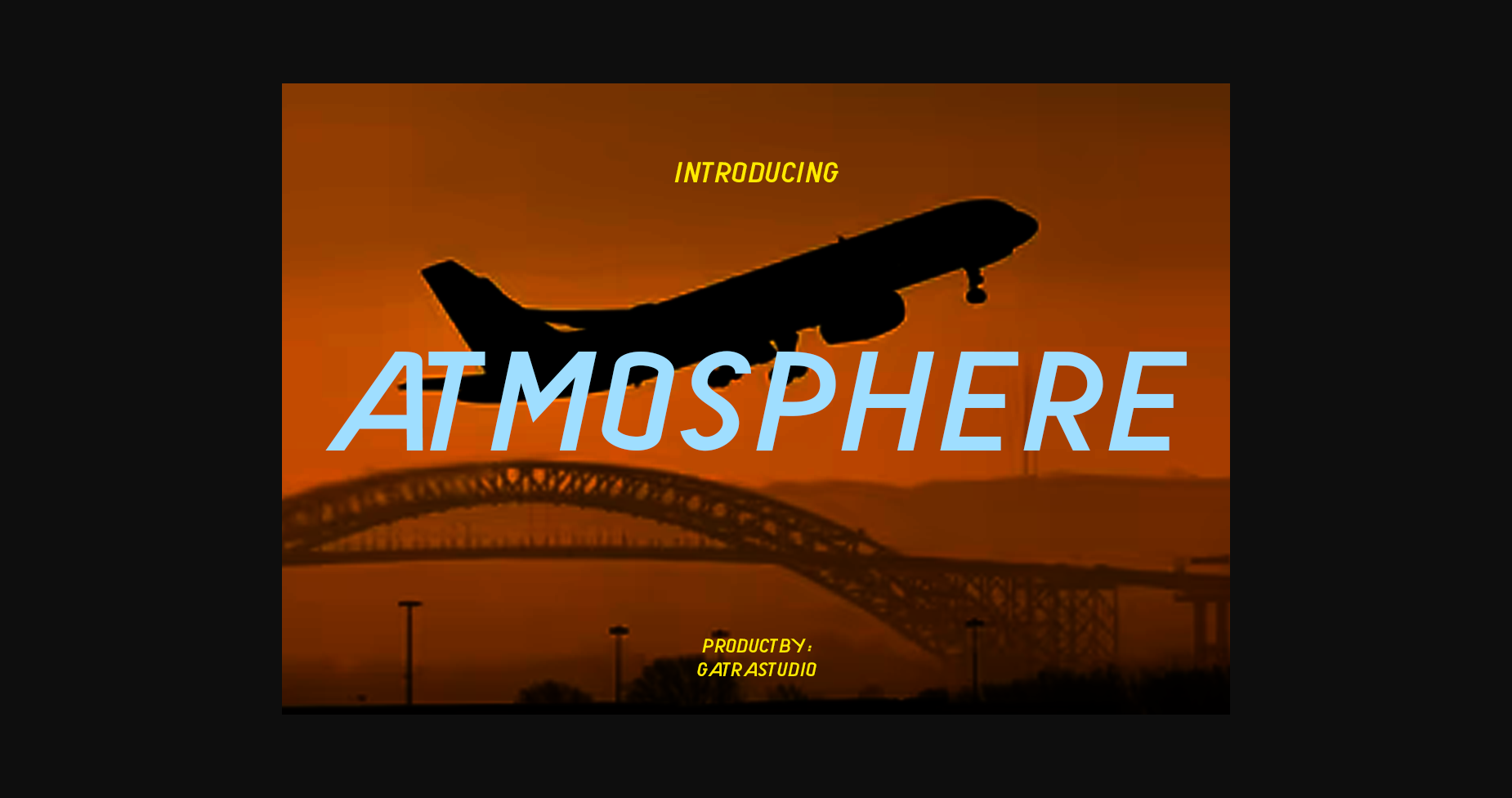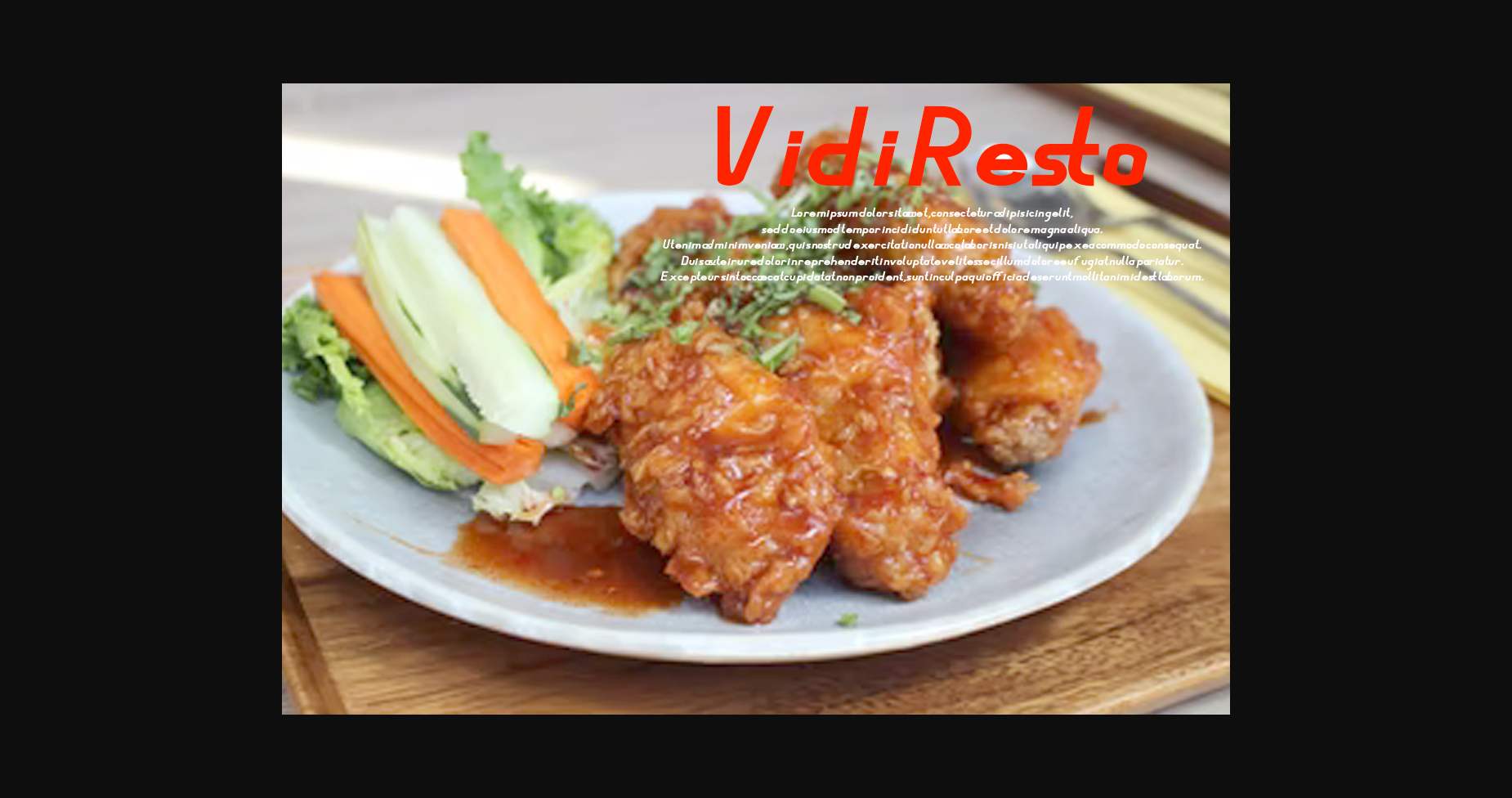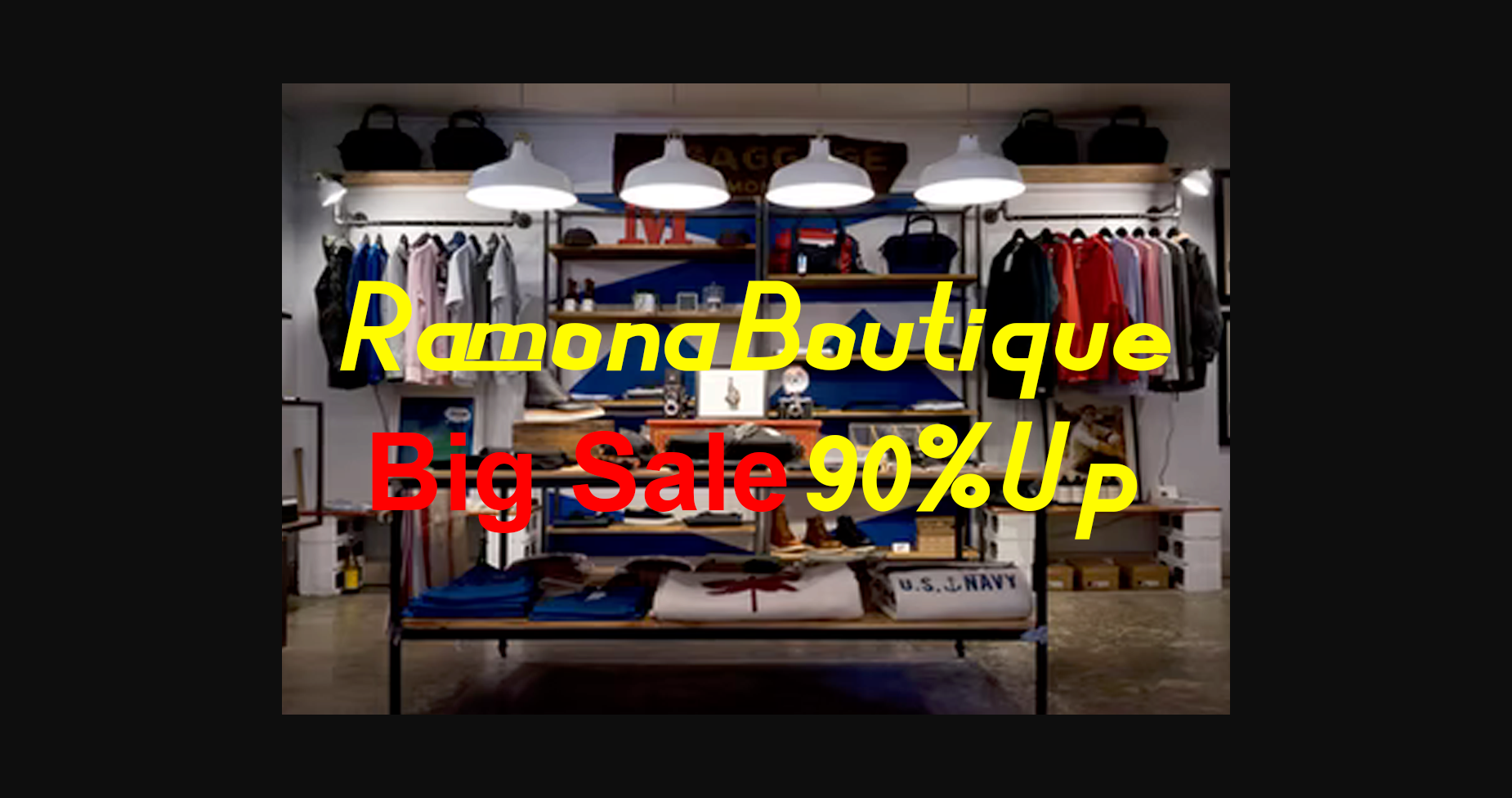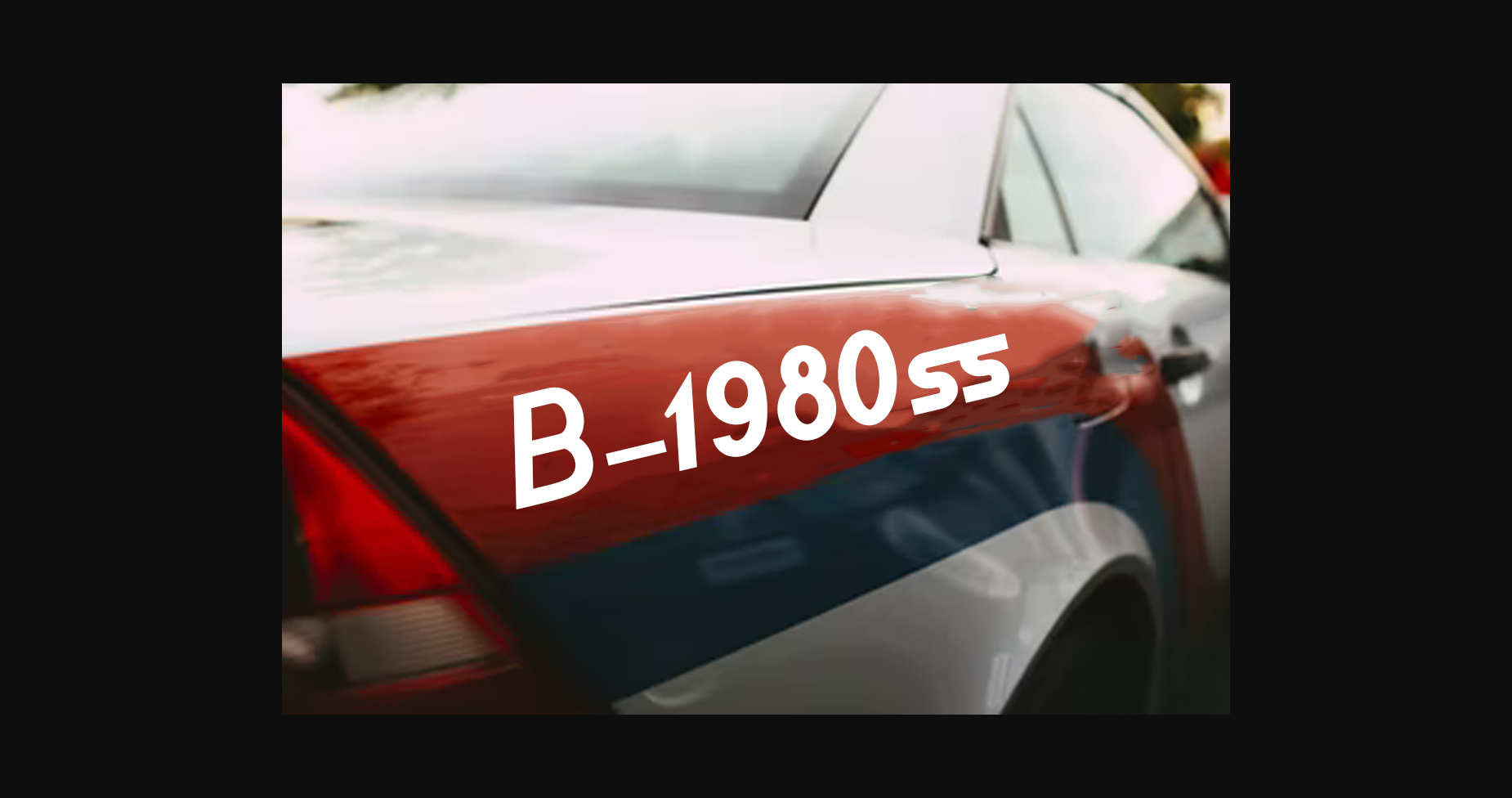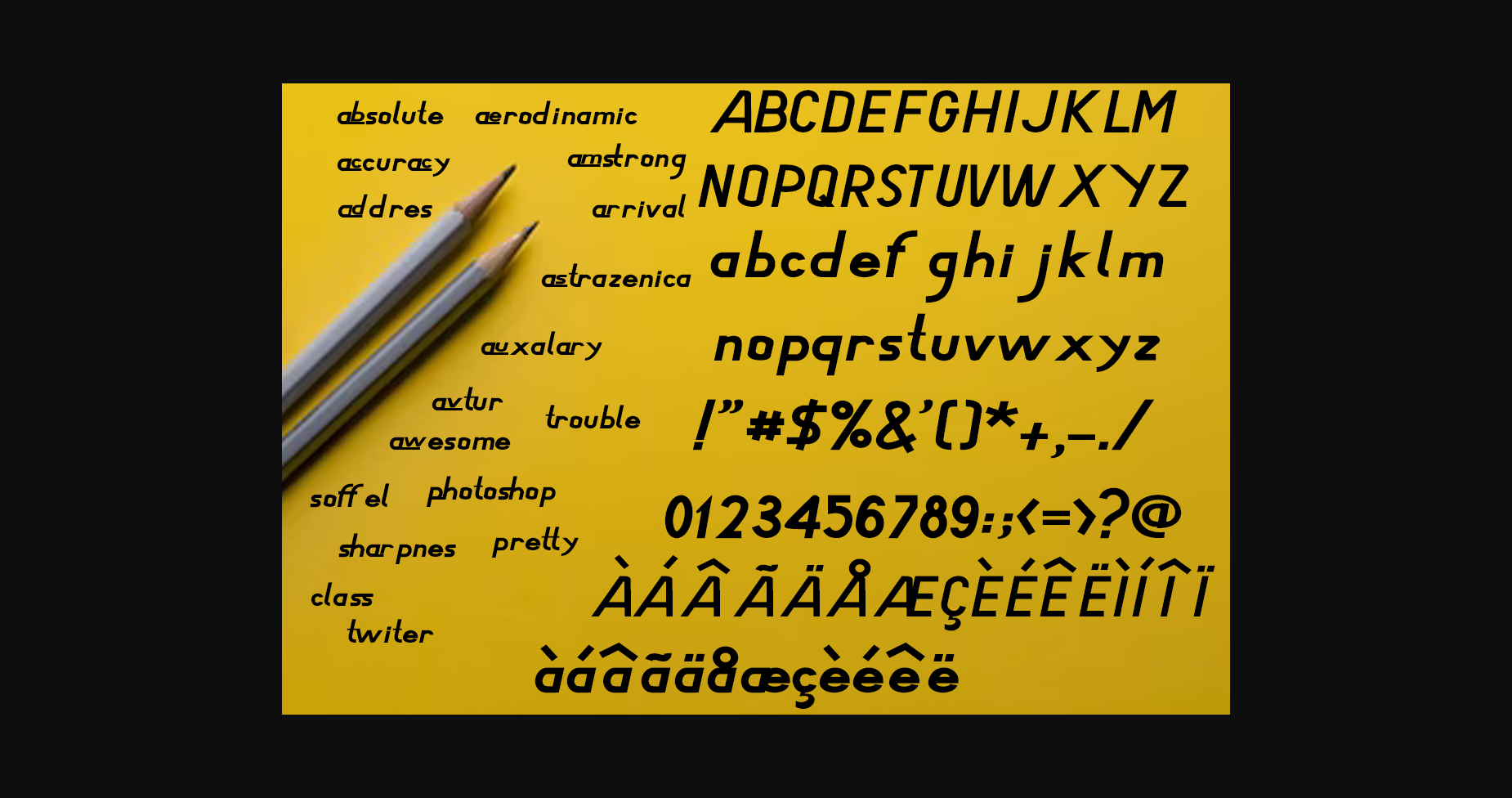
About Atmosphere Font
Atmosphere is a minimal and neat sans serif font. It can easily be matched to an incredibly large set of projects, so add it to your creative ideas and notice how it makes them stand out!